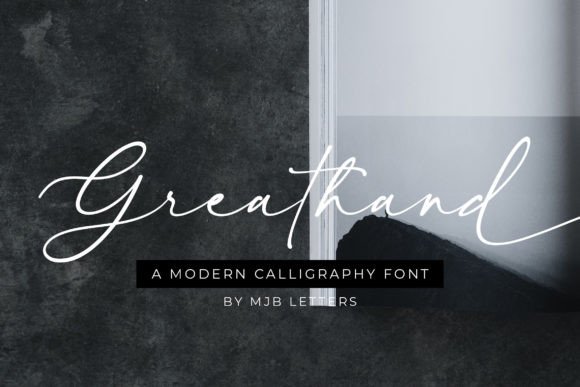
Introducing Greathand Font, the ultimate script font for your rustic wedding dreams! Created by the talented MJB Letters, this modern calligraphy font effortlessly combines elegance and versatility, making it the perfect choice for all your design needs.
With its unique features and captivating charm, Greathand Font is the must-have asset for designers and creatives looking to elevate their projects to new heights. Let's delve into what sets this font apart and why it deserves a special place in your collection.
1. Exquisite Elegance: Greathand Font exudes an air of sophistication and grace, adding a touch of refined beauty to any design. Whether you're creating wedding invitations, signage, or branding materials, this font will effortlessly infuse your creations with a sense of timeless elegance.
2. Rustic Wedding Delight: Searching for the perfect font to capture the rustic charm of your wedding day? Look no further! Greathand Font is the go-to choice for rustic-themed celebrations, as it flawlessly captures the warmth and quaintness of this beloved style. Your invitations, place cards, and signage will radiate rustic allure, setting the perfect tone for your special day.
3. Unleash Your Creativity: Don't limit yourself to the ordinary – with Greathand Font, your creative possibilities are endless. From logos to social media graphics, this font adapts seamlessly to any design project, allowing you to express your unique vision and stand out from the crowd.
4. Effortless Versatility: Say goodbye to juggling multiple fonts for different purposes. Greathand Font's versatility shines through, effortlessly adapting to a range of design applications. Whether it's a bold headline or delicate script, this font has the flexibility to meet all your needs with style and ease.
5. Exceptional Quality: MJB Letters has poured their heart and soul into creating Greathand Font, ensuring unparalleled quality and attention to detail. Every stroke and curve has been meticulously crafted, resulting in a font that exudes professionalism and finesse.